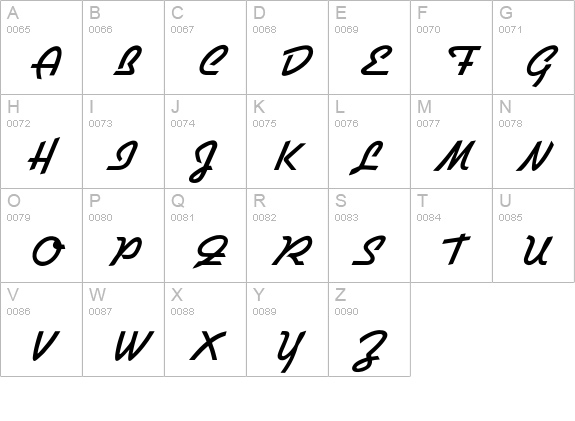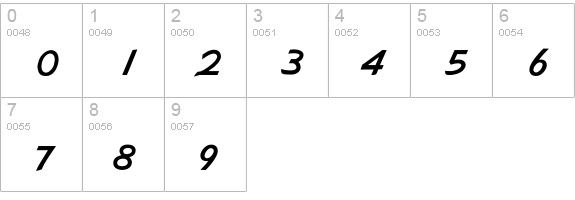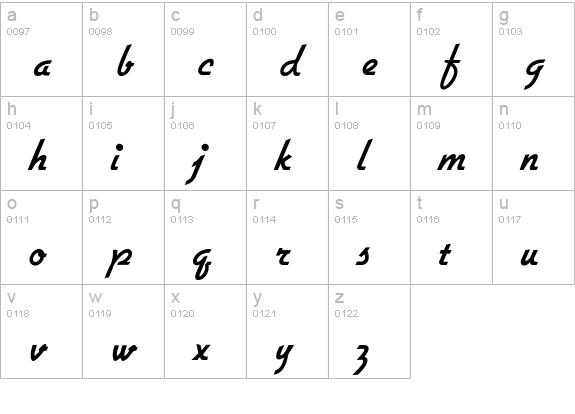
GilliesBold Font Details
Introducing GilliesBold font, a modern and sleek typeface that exudes confidence and sophistication. With its bold and striking appearance, GilliesBold is perfect for making a statement in any design project. This versatile font is ideal for headlines, posters, logos, and more, thanks to its strong and impactful presence. The best part? GilliesBold is available for free download at FontsMarket.com, making it accessible to all designers and creators looking to add a touch of boldness to their work. Embrace the power of GilliesBold and elevate your designs with this eye-catching font today.